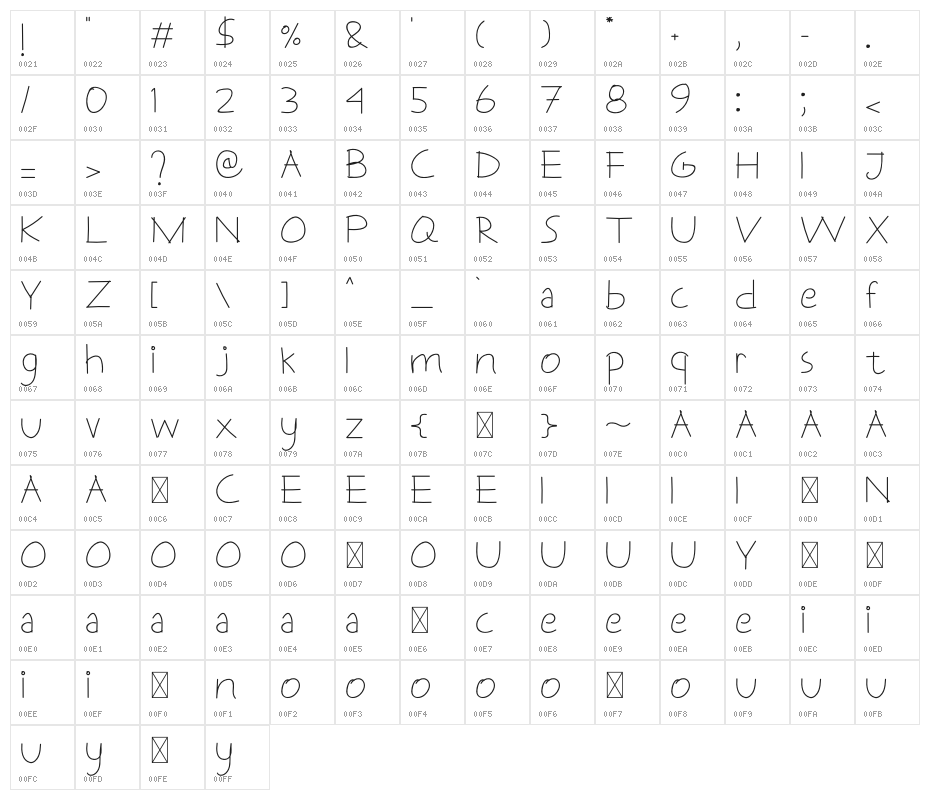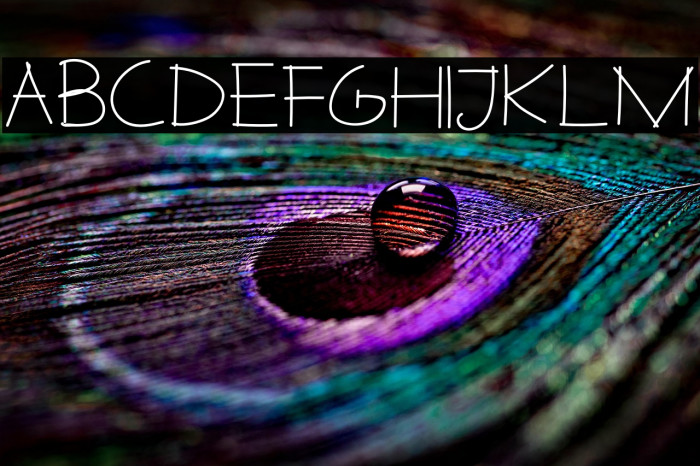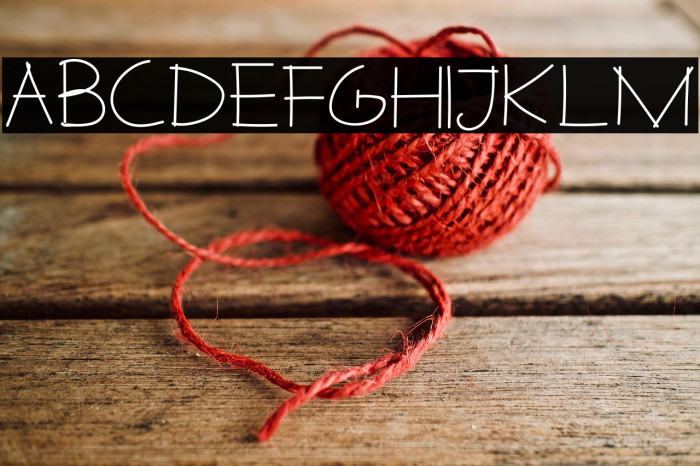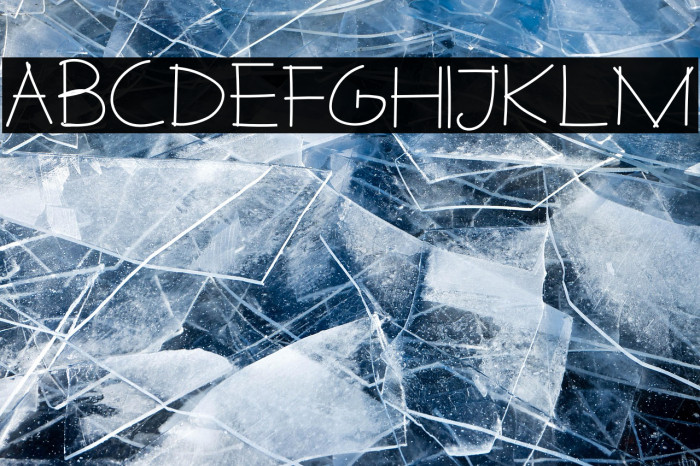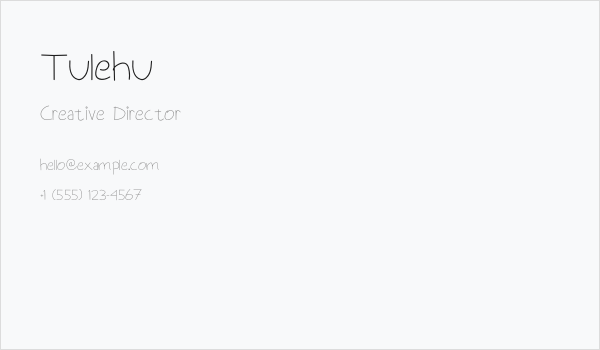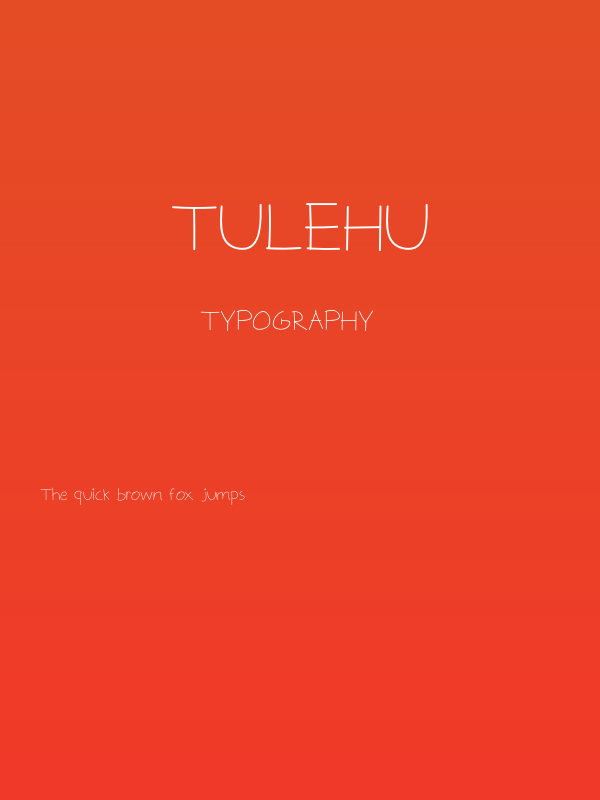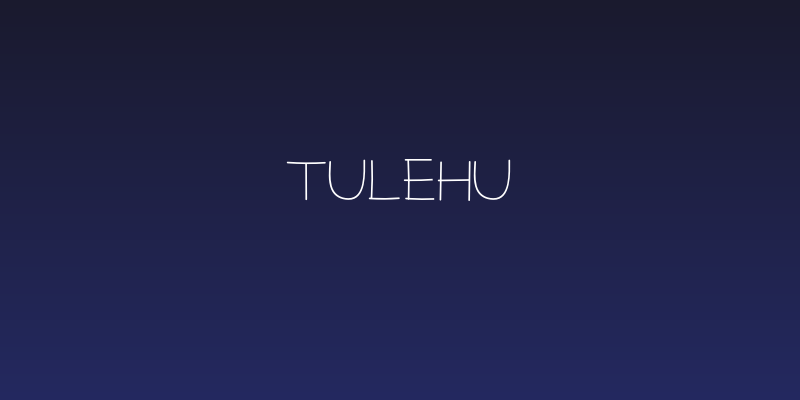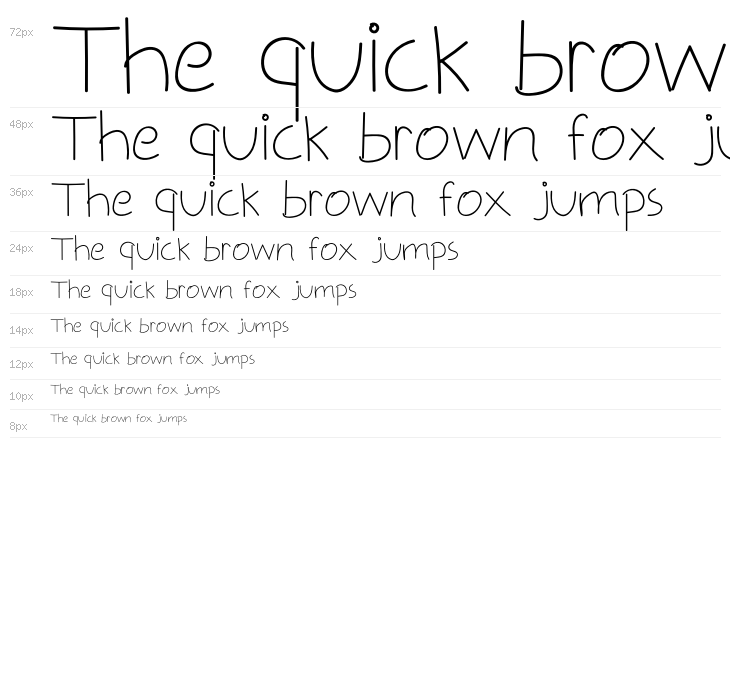
Tulehu Font
Tulehu Description
This font features a playful and casual handwritten style, characterized by its thin, consistent strokes and rounded edges. The letters are slightly irregular, giving it a whimsical and approachable feel. The uppercase letters maintain a uniform height, while the lowercase letters exhibit a gentle variation in size, enhancing its informal appearance. Numbers and special characters follow the same playful design, making them easily recognizable and visually appealing. This font is perfect for projects that require a friendly and informal touch.
| Use Case | Headlines, Informal text, Branding |
| Proposed Projects | Ideal for children's books, greeting cards, casual invitations, and playful branding. |